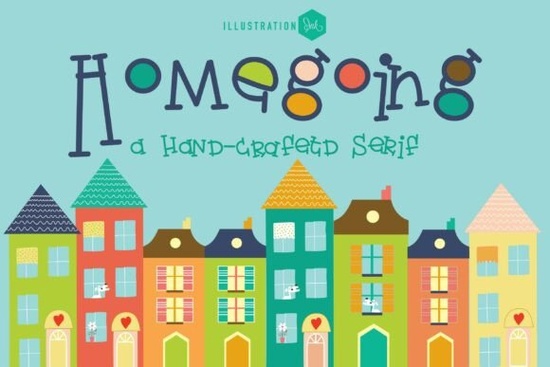
Sometimes a font does more than just spell out words it wraps your project in a feeling. Homegoing is exactly that kind of typeface. With its tall, storybook letterforms and unexpected pops of mismatched geometric color, it turns ordinary headlines into something that feels like a warm welcome. Whether you run a small independent real estate agency, design custom children’s bedroom murals, or craft handmade bakery signs, the Homegoing Font brings a nostalgic yet fresh personality that fits right into modern indie branding.
What makes the Homegoing Font so different from other playful display fonts?
The first thing you notice is the color. Unlike most fonts that leave color decisions entirely up to the designer, Homegoing comes with built-in, solid geometric color fills each character carries its own little patchwork of hues. These aren’t gradients or outlines; they’re chunky, opaque shapes in cheerful combinations that feel like a mid-century picture book. Then you spot the letterforms themselves: tall, whimsical, and mixed-case, with uneven slab-serif bars that look like tiny shelves. Rounded characters like ‘o’, ‘d’, or ‘c’ even sprout adorable teapot-style handles and lids, giving the whole alphabet a playful, handmade feel.
Many display fonts lean either too childish or too rigidly retro. Homegoing sits comfortably in a space that bridges nostalgic illustration with contemporary lifestyle aesthetics. It’s not a one-note gimmick font the color fills and quirky serifs are carefully balanced so the text stays readable even at small social media headline sizes.
Which projects benefit most from this storybook style?
If your design work involves creating an inviting, personal atmosphere, this font fits naturally. Think of applications like:
- Independent real estate agent logos and yard signs, where the “welcome home” feeling matters.
- Custom wallpaper text for kids’ rooms or reading nooks the tall letters and soft colors feel gentle.
- Family bakery and café logos: the teapot handles and cozy vibe pair perfectly with hand-drawn pastry icons.
- Handmade craft market flyers and community event posters that need to stand out without shouting.
- Instagram quote graphics and Pinterest pins where the instant visual pop draws the eye.
Because each letter already has its own color block, you save time hunting for the perfect palette. The font does a lot of the heavy lifting for you, which is a real advantage for small business owners and print-on-demand sellers who need quick, polished results.
Is Homegoing easy to read for body text?
No, and it wasn’t designed for that. This is a specialty display typeface, so it shines at large sizes headlines, logos, signage, and short bursts of text. For longer paragraphs, you’ll want to pair it with a clean, neutral sans-serif or a soft slab-serif. When used as a focal point, the mixed-case letterforms stay surprisingly legible because the shapes aren’t overly distorted. Just avoid setting entire paragraphs in it; otherwise, the colorful fills and teapot details start to compete too much with the message.
How do the built-in color fills actually work?
Can I pair Homegoing with other fonts from Creative Fabrica?
Absolutely. The colorful, handcrafted mood pairs beautifully with softer supporting fonts. For a cozy, sugary vibe, the squishy marshmallow letters in a similar playful category make a sweet companion for captions or subheadings. If your project calls for something bold and full of energy, thick bubble letterforms can amplify the fun. For a cosmic twist, you might incorporate a celestial star typeface into badges or accent elements, while the retro sportiness of a classic varsity jacket lettering style gives a completely different edge to event posters. And if you want to lean into vintage video game nostalgia, the blocky chunkiness of a familiar arcade-inspired font creates amusing contrasts with Homegoing’s storybook charm.
Is this font suitable for a real estate brand identity?
Yes. Real estate branding often defaults to serif formality or sterile sans-serif tidiness. Homegoing offers a distinctive alternative especially for boutique agencies, family-run property groups, or Airbnb hosts who want their rental guides to feel warm. The teapot-style handles and colorful letters subtly suggest comfort, shelter, and a personal touch. Just be mindful of use on legal documents or contracts; keep the playful type for marketing materials, shop windows, and social media where it builds a friendly brand voice.
What if I design children’s book covers or printable wall art?
This font shines in exactly those settings. The mixed-case, tall letterforms recall the hand-lettered titles of beloved mid-century storybooks. For a children’s book cover, Homegoing instantly signals “whimsical” and “gentle adventure.” For printable nursery art, the color fills reduce your design steps just type the child’s name or a short quote and export. It also works wonderfully for classroom labels, bookmarks, and baby shower invitation suites. Because the typeface already feels like a small illustration, you can keep layouts minimal and still end up with a finished, professional look.
What should I check before buying a color font like Homegoing?
A quick checklist helps you avoid surprises:
- Software support: Verify that your design app (Photoshop, Illustrator, Affinity, Canva, etc.) handles OpenType-SVG or SBIX color fonts.
- Print compatibility: Some home printers and older RIP software may not process color fonts correctly. Always run a small test print, or convert text to outlines if needed.
- Color editing: Understand that the built-in colors are baked into the glyphs. If you need full color control, check if the font includes a monochrome layer you can easily recolor.
- Pairing: Grab a simple complementary sans-serif in advance so you can set body text without clashing.
Once these boxes are ticked, you’re ready to welcome your audience with the cozy, storybook personality that only Homegoing Font can deliver.